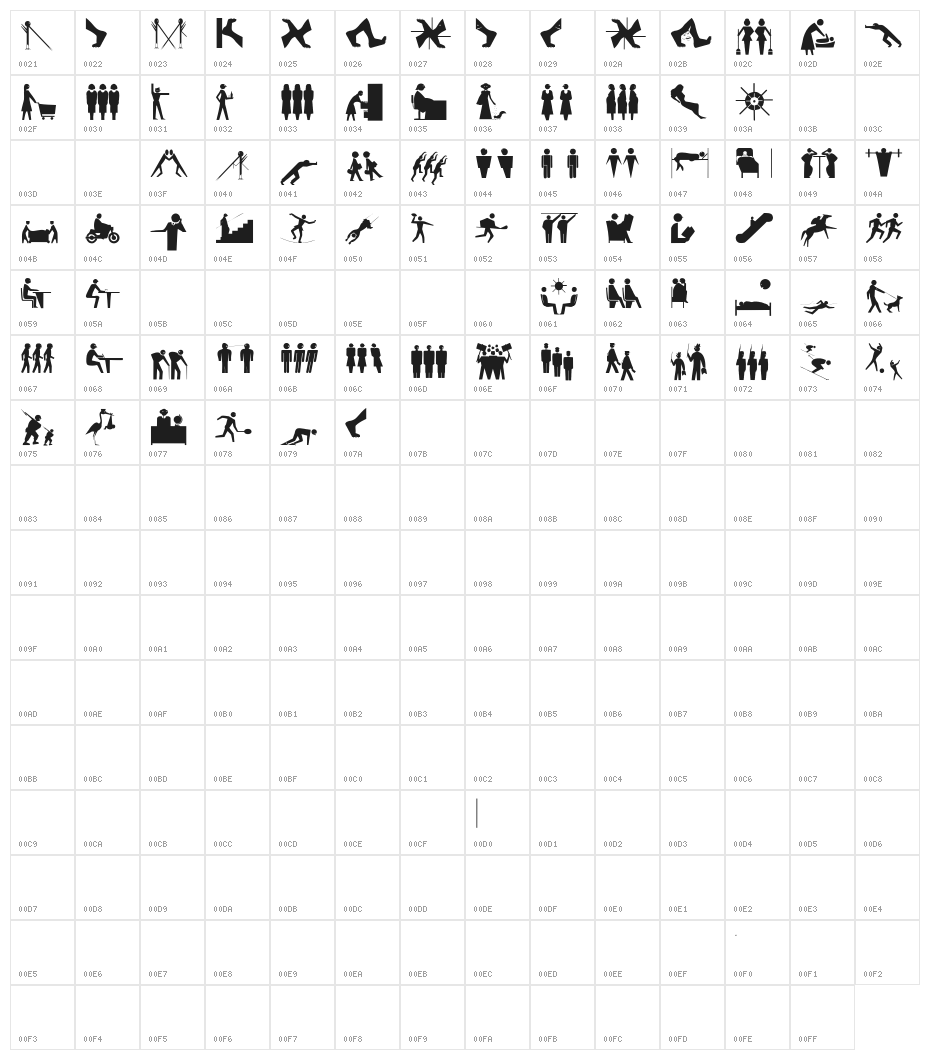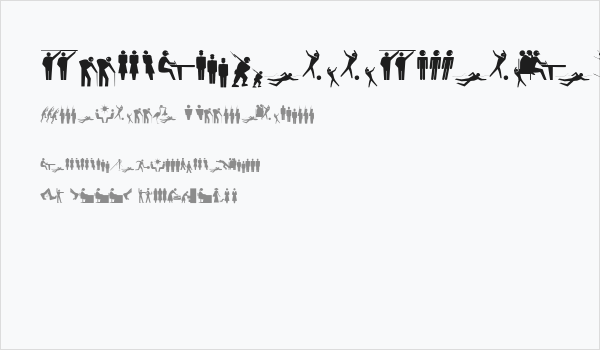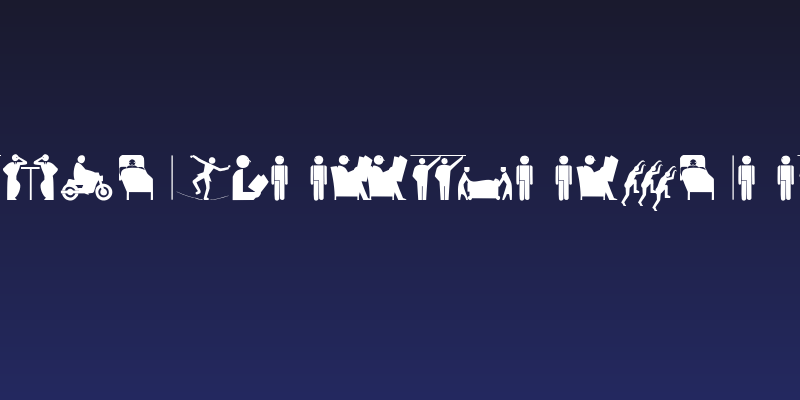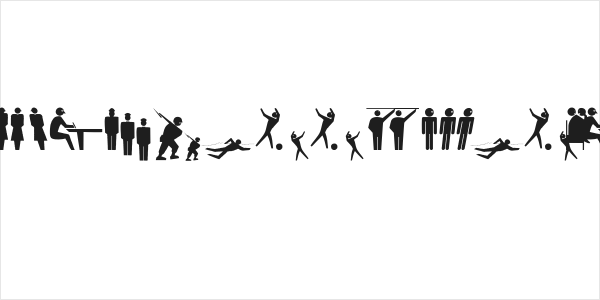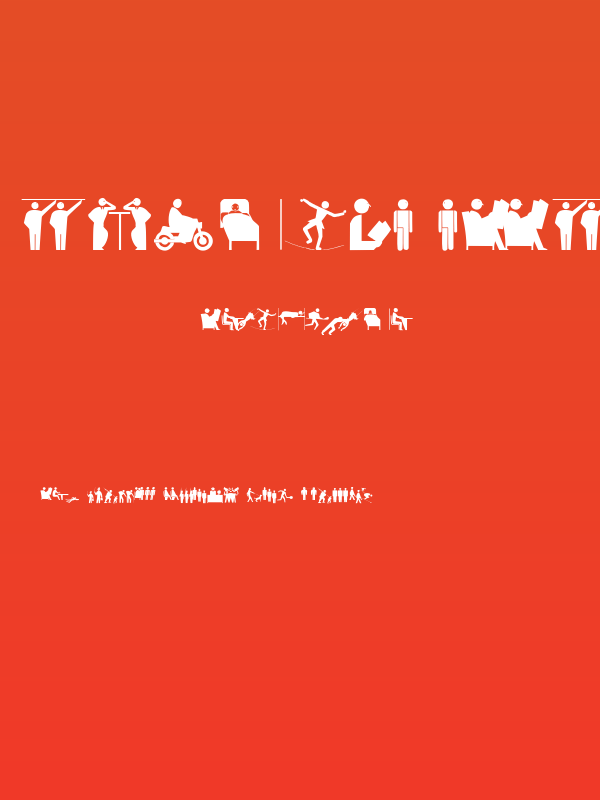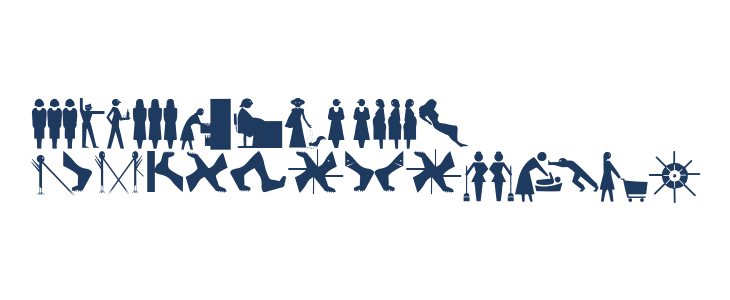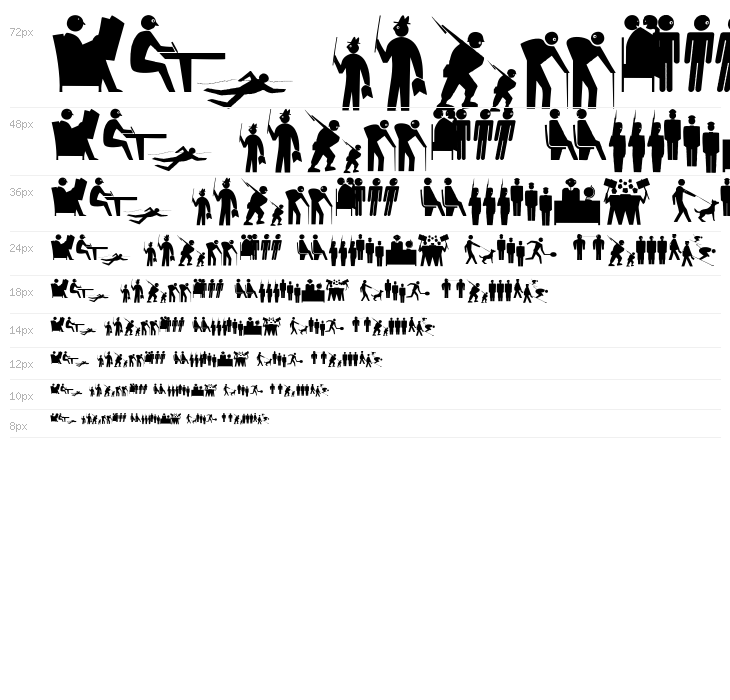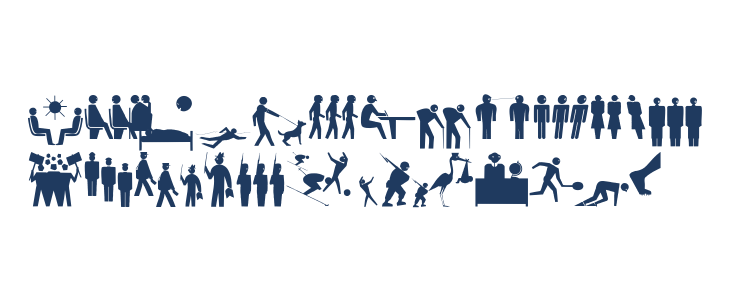
SilhouettSketches Font
SilhouettSketches Description
A playful, illustrative set of silhouette glyphs depicting various human activities and interactions, each character or scene rendered in bold, solid black shapes with minimal detail for instant recognition.
| Overall Style | Decorative, Playful, Illustrative |
| Use Case | Icons, Visual storytelling, Posters, Infographics |
| Proposed Projects | Infographics, educational materials, signage, children’s books, creative posters, visual storytelling. |